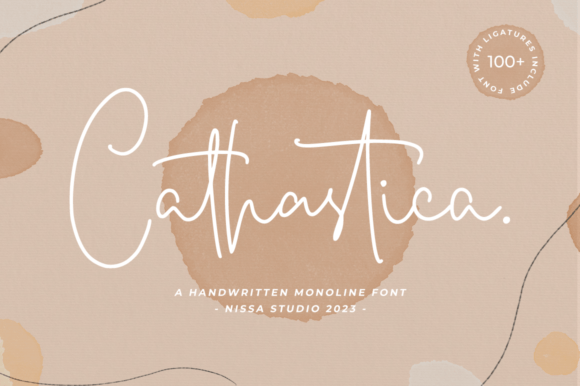
Introducing Cathastica, a script font family that will bring an aura of sophistication and charm to your creative endeavors. This exquisite handwritten font was meticulously crafted by NissaStudio to captivate your audience and make a lasting impression.
Cathastica's delicate strokes and elegant curves exude a timeless beauty, perfect for adding a touch of romance and luxury to your designs. Its unique feel and stunning impact will make your words dance off the page, whether you're crafting wedding invitations, branding materials, or social media graphics.
Beyond its visual appeal, Cathastica is also incredibly versatile, lending itself to a wide range of design projects. Its PUA encoding makes it simple to access the entire spectrum of glyphs and ligatures, allowing you to create intricate and eye-catching designs with ease.
With Cathastica, you'll have the power to:
* Design wedding invitations that radiate elegance and romance, leaving a lasting impression on your guests.
* Create stunning branding materials that exude professionalism and sophistication, attracting the right clients to your business.
* Craft social media graphics that captivate your audience and make your posts stand out from the crowd.
* Unleash your creativity and explore endless possibilities, knowing that Cathastica will elevate your designs to new heights.
Don't settle for ordinary fonts. Embrace the beauty and versatility of Cathastica, and let your creative spirit soar. Experience the magic of Cathastica today and witness the transformation of your designs into works of art.